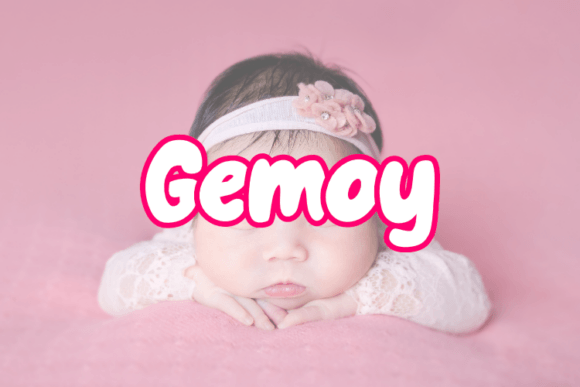
Introducing Gemoy Font: The Ultimate Design Companion for Fashion and Creativity
In the world of design, fonts play a crucial role in bringing ideas to life. A well-crafted font can elevate a design from ordinary to extraordinary, making it essential for designers to have access to high-quality typography. This is where Gemoy Font comes in – a strikingly versatile font designed to breathe life into your creations. In this article, we’ll explore the features and benefits of Gemoy Font, and why it’s the perfect addition to your design toolkit.
What is Gemoy Font?
Gemoy Font is a modern, fashion-forward font designed specifically for designers who want to create stunning visual content. Its versatility and compatibility make it an ideal choice for a wide range of design projects, from trendy tees and high-quality merchandise to branding and advertising materials.
Gemoy Font is perfectly crafted for fashion designs, providing a unique and stylish touch to any project. Its clean lines, elegant curves, and precise lettering make it perfect for creating visually appealing designs that stand out from the crowd.
Key Features of Gemoy Font
- Versatility: Gemoy Font is designed to be versatile, making it suitable for a wide range of design projects, from fashion and lifestyle to branding and advertising.
- Elegant Design: Gemoy Font features clean lines, elegant curves, and precise lettering, making it perfect for creating visually appealing designs.
The Benefits of Using Gemoy Font
Gemoy Font offers a range of benefits that make it an attractive choice for designers. Here are some of the advantages of using Gemoy Font in your design projects:
- Time-Saving: With Gemoy Font, you can save time and effort in creating high-quality designs. Its elegant design and versatility make it easy to use and adapt to different design projects.
- Consistency: Gemoy Font ensures consistency in your designs, which is essential for building a strong brand identity.
- Professionalism: Gemoy Font is designed to look professional and polished, making it perfect for high-end designs and branding projects.
- Creativity: Gemoy Font provides a creative foundation for your designs, allowing you to experiment and push the boundaries of your imagination.
Tips and Tricks for Getting the Most Out of Gemoy Font
Here are some tips and tricks for getting the most out of Gemoy Font:
- Pair with Other Fonts: Pair Gemoy Font with other fonts to create a unique and visually appealing design.
- Experiment with Colors: Experiment with different colors and gradients to add depth and interest to your design.
- Use in Combination with Images: Use Gemoy Font in combination with images to create a striking visual effect.
- Pay Attention to Kerning: Pay attention to kerning and letter spacing to ensure that your design looks polished and professional.
In conclusion, Gemoy Font is a strikingly versatile font that breathes life into your creations. Its elegant design, versatility, and compatibility make it an ideal choice for fashion designs, branding, and advertising projects. With its multiple file formats and ease of use, Gemoy Font is the perfect addition to your design toolkit.